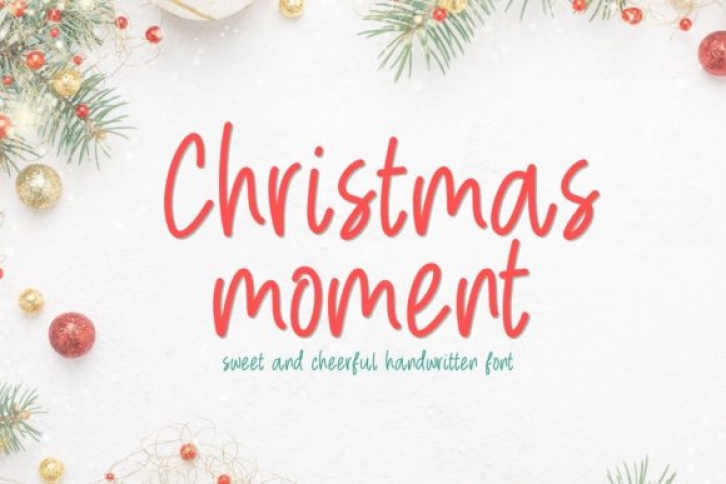
Christmas Moment is a sweet and cheerful handwritten font. Its friendly feel makes this font versatile, fitting a wide range of design projects. Add this font to your favorite creative ideas and notice how it makes them come alive.